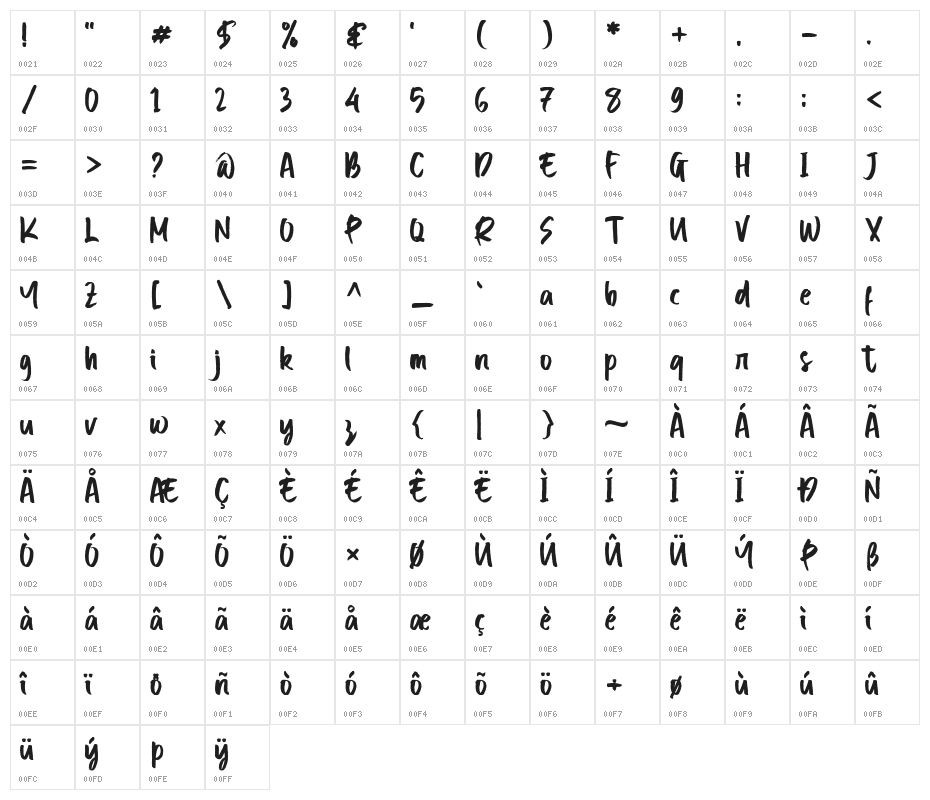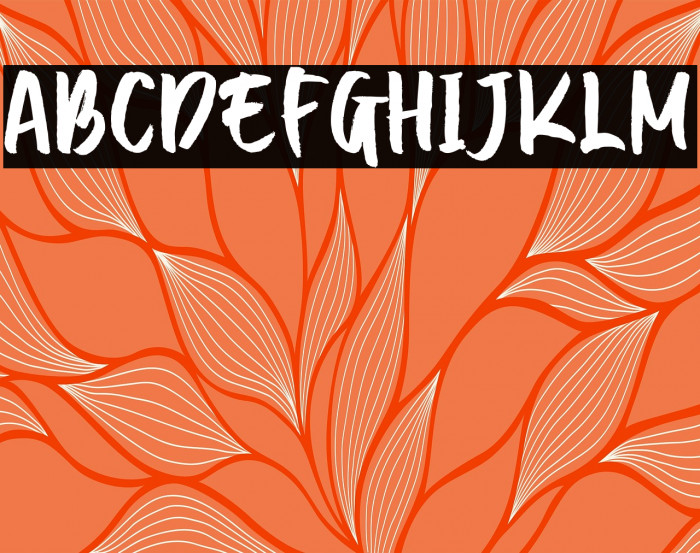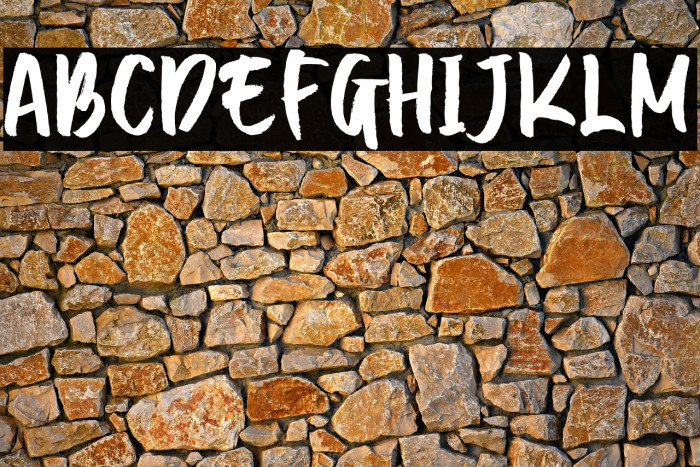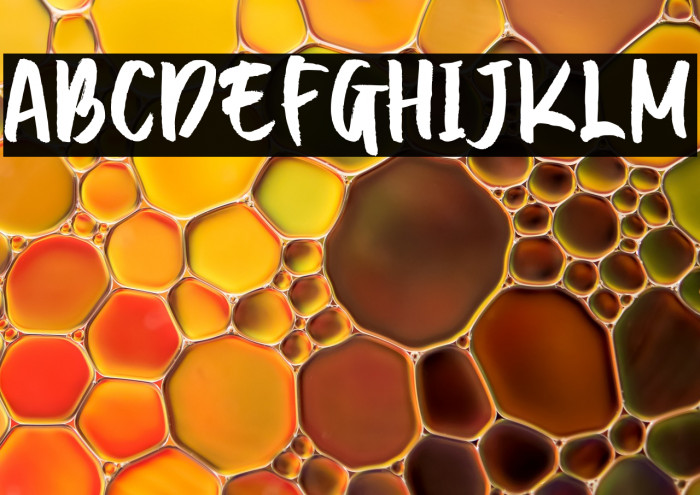
Break Types Font
Break Types Description
This font features a bold and expressive handwritten style, characterized by its brush-like strokes and dynamic flow. The letters have a casual and artistic appearance, with varying stroke thickness that adds a sense of movement and energy. The uppercase letters are bold and slightly irregular, while the lowercase letters maintain a consistent style, enhancing the font's overall cohesiveness. The numbers and special characters follow the same expressive design, making the font versatile for creative projects. Its unique style is perfect for adding a personal touch to any design.
| Use Case | Logos, Headlines, Posters |
| Proposed Projects | Ideal for branding, posters, invitations, and artistic projects that require a personal and dynamic touch. |